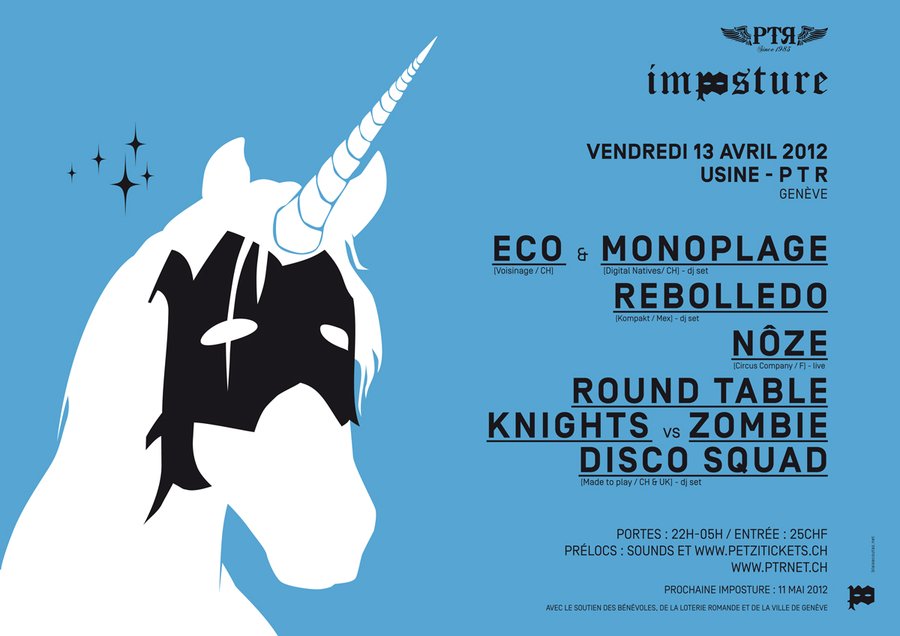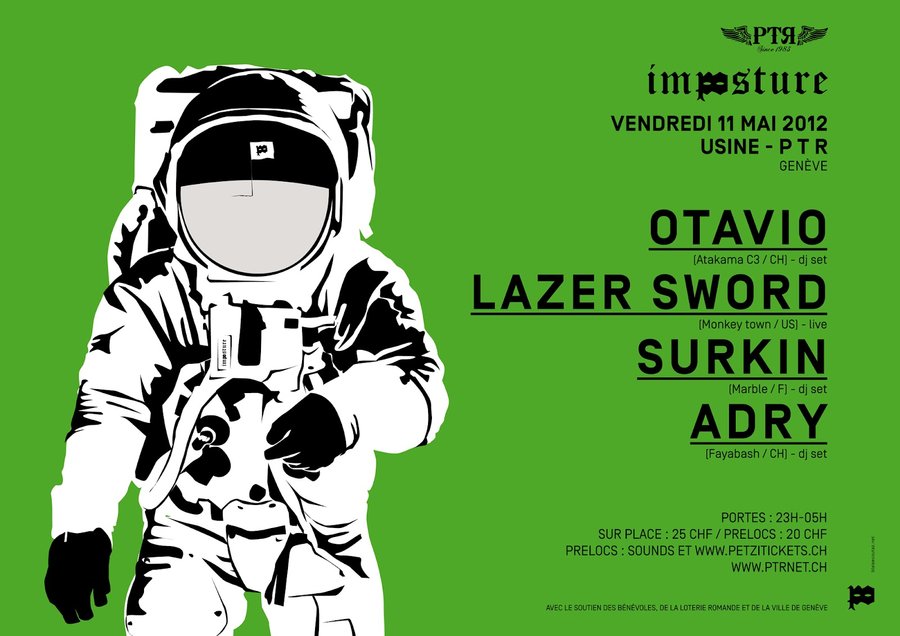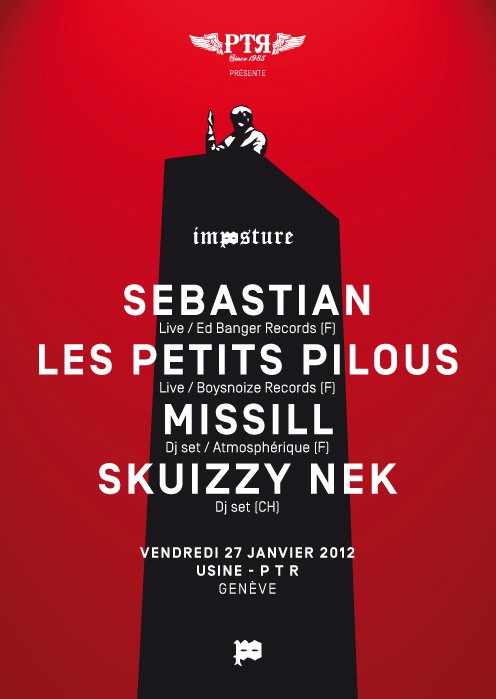
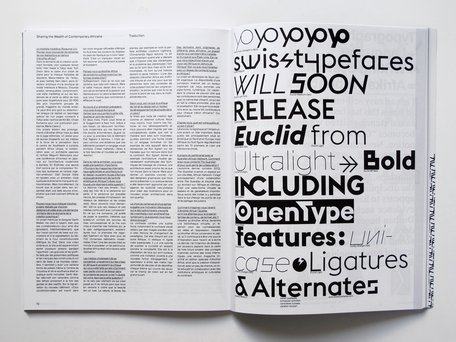
Swiss typefaces ads published in IDPURE, the swiss magazine of visual creation, graphic design, design and typography.
IDPURE Magazine, issue 25 to issue 31, 2011–2013
Design: Raphaël Verona
Simplon BP Mono used for The season's most unforgettable new faces, by style.com.
After Boston, Milan und Lausanne, Types We Can Make stops in San Francisco.
This exhibition, curated by ECAL/University of Art and Design Lausanne, presents a selection of new typography works from Switzerland, where type design has had the status of a high art form for generations.
Swiss typefaces is well represented with Romain BP, SangBleu BP, Simplon BP, Suisse BP, New Fournier BP and some private typefaces for Esquire, Mugler, L'Hebdo, ...
From 04 May 2012 to 15 Jun 2012 at swissnex San Francisco.
Switzerland's national broadcaster has launched a new visual identity, using Simplon BP fonts on it's new high-definition TV channels.
Here is a video of the french-speaking channels (RTS), which showcases the new visuals.
Channel's logos were designed in-house, but the main broadcaster's identities for the four official languages of Switzerland (German, French, Italian, Romansh) were designed by the London based branding and design agency Dunning Penney Jones in collaboration with Dalton Maag for a bespoke typeface.
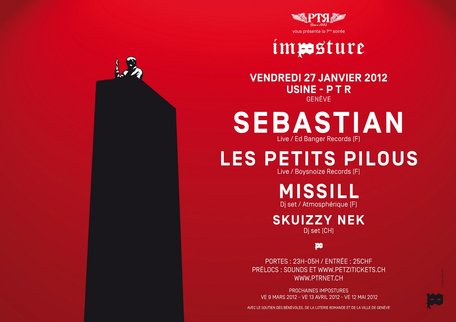
Graphic Designer Blaise Coutaz uses Simplon BP typeface for the posters and flyers of Imposture partys at the Usine PTR, Geneva.